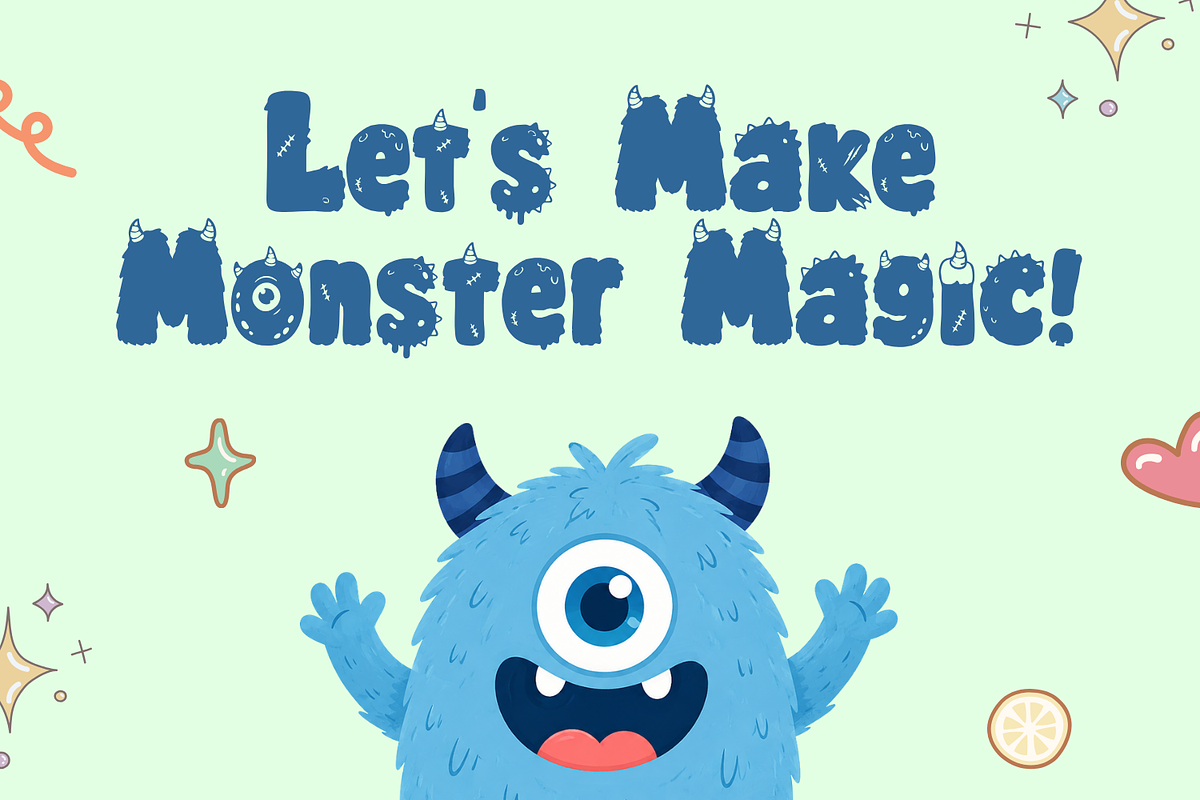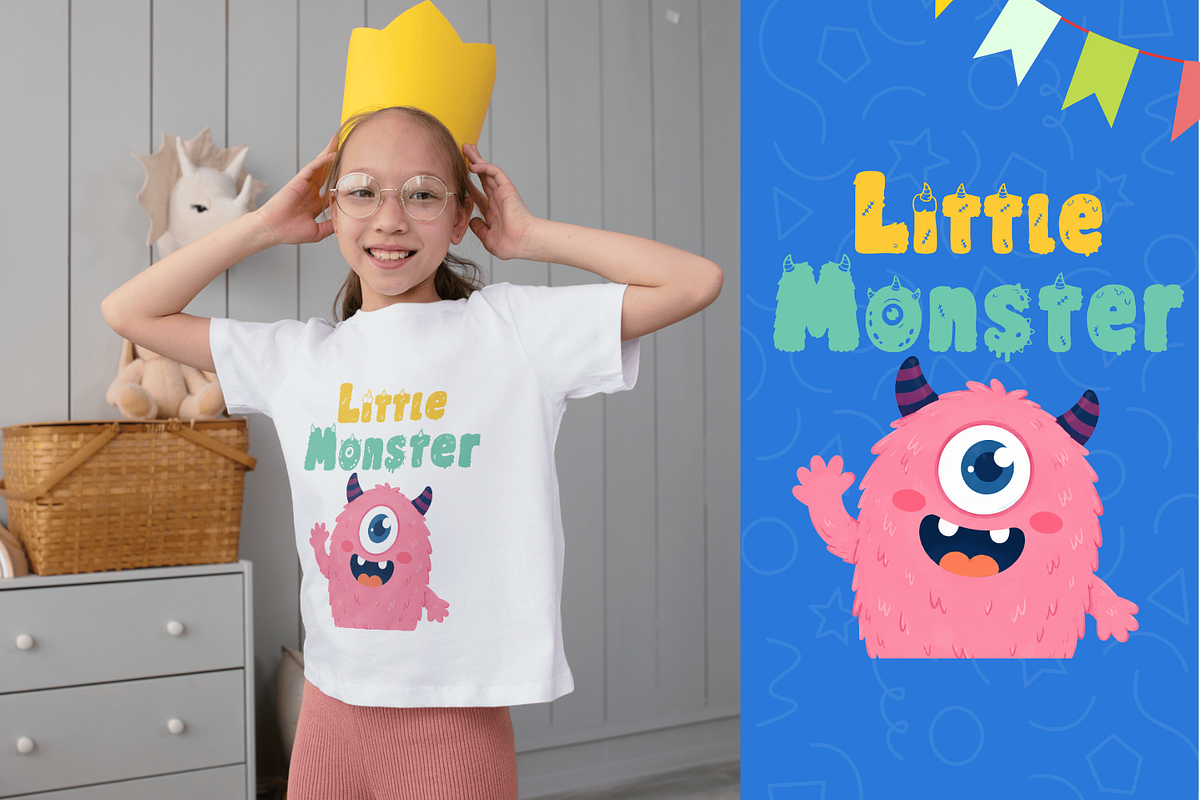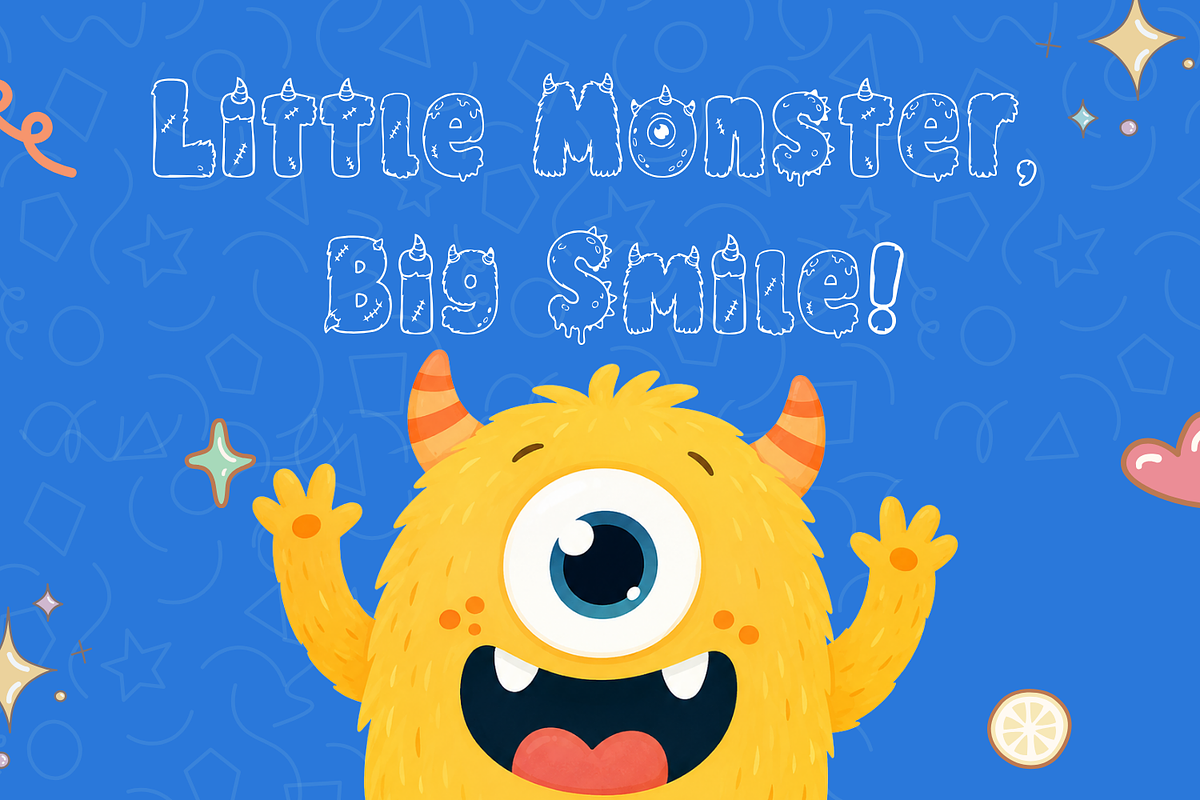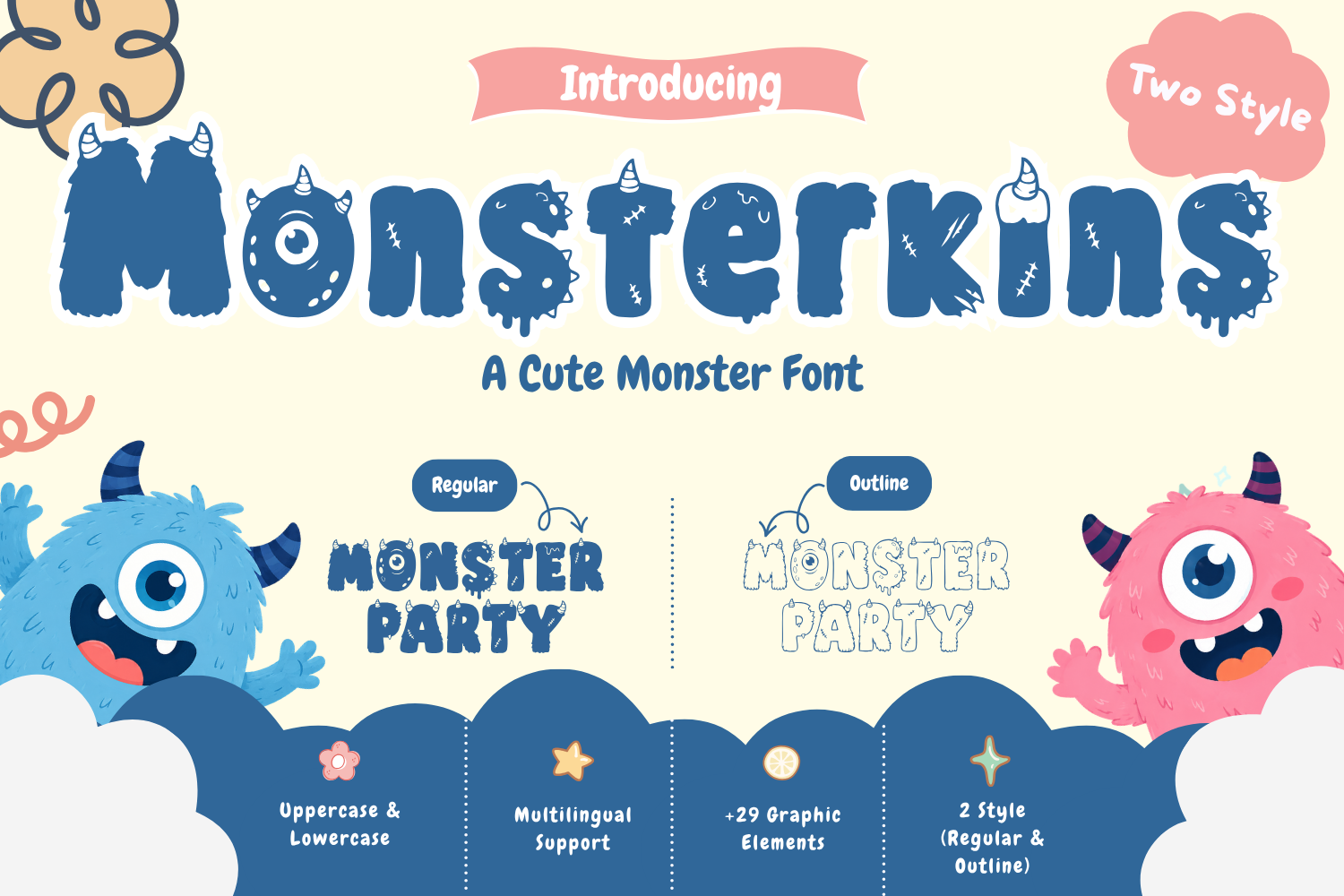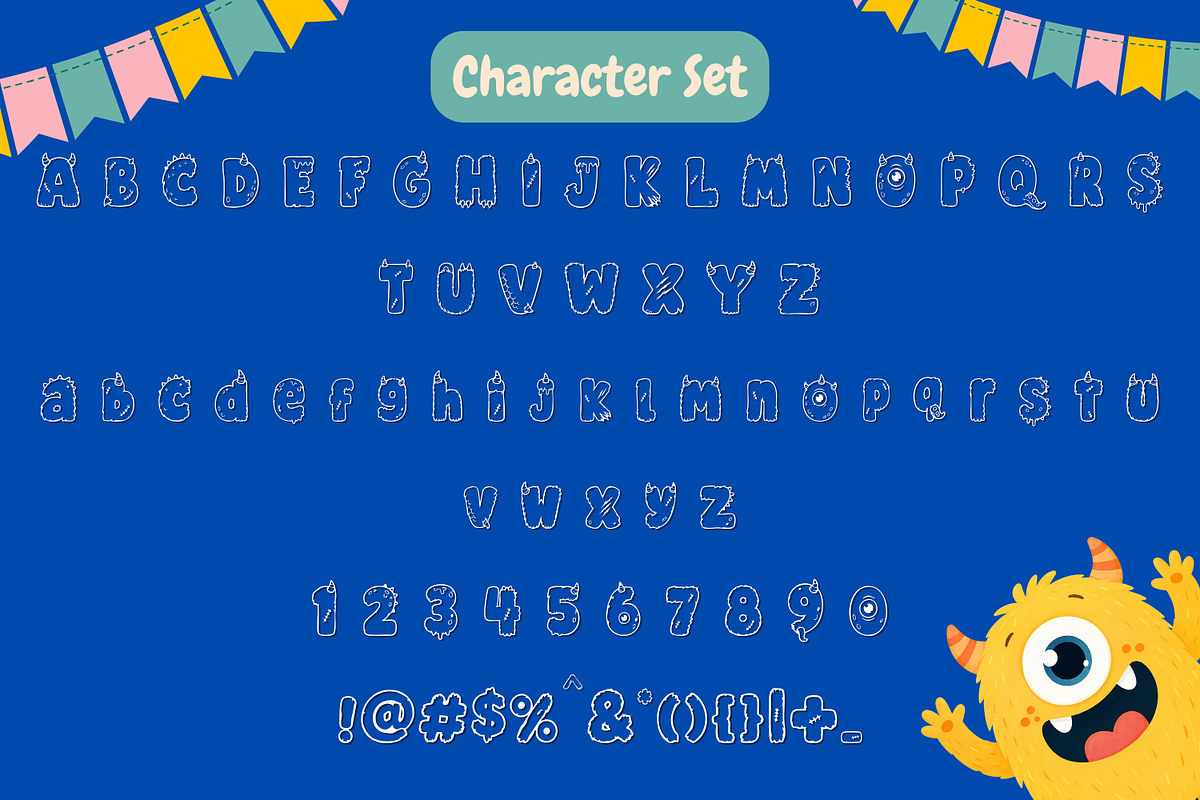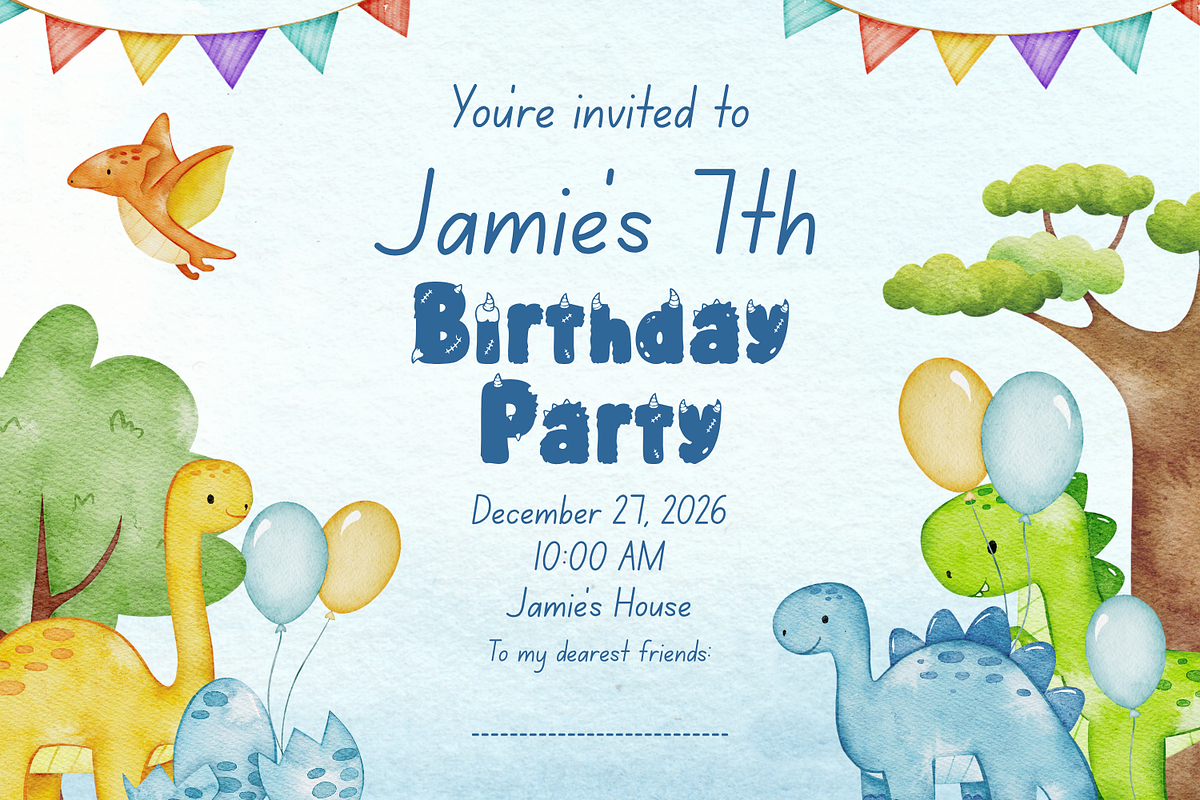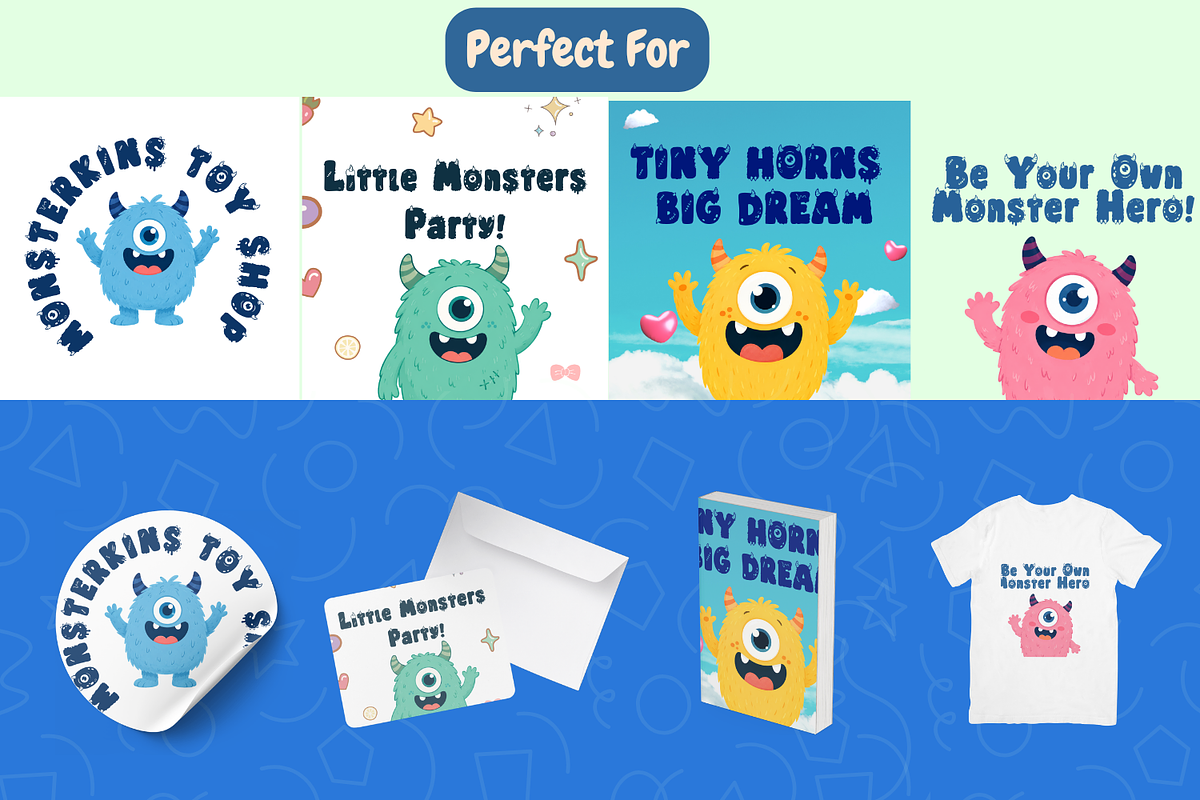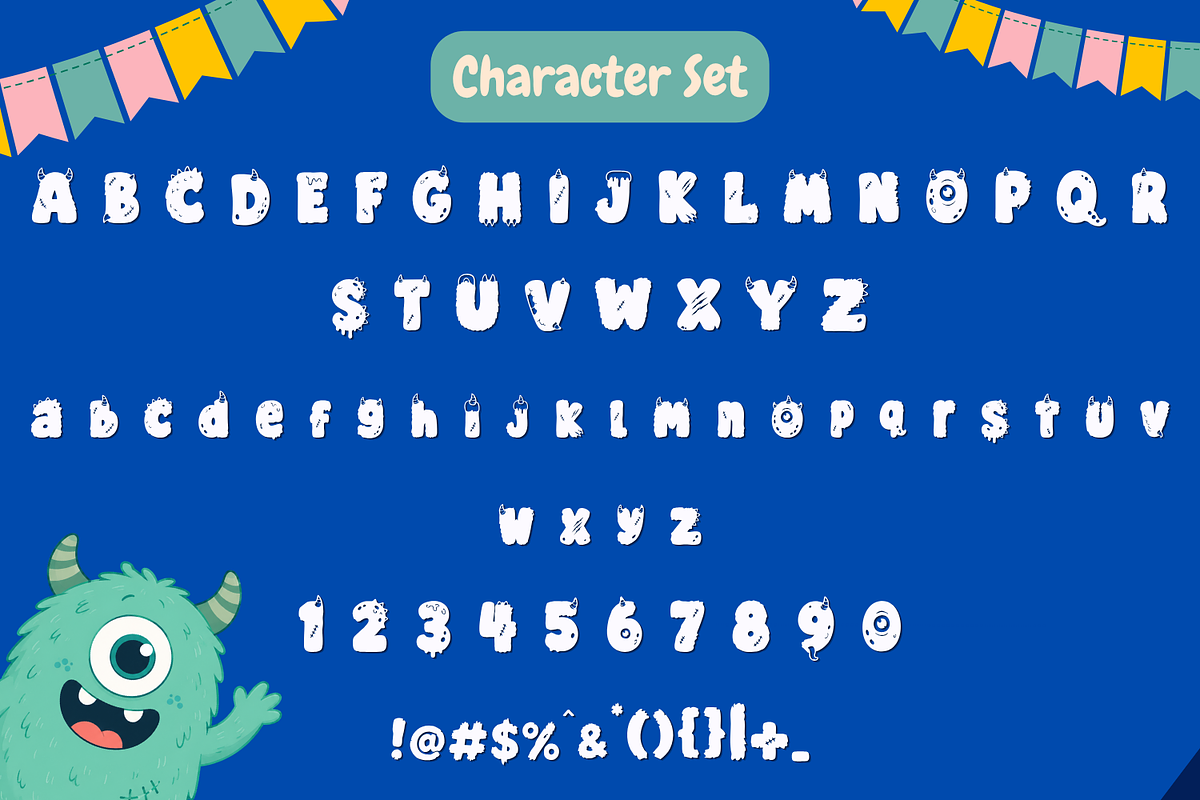
Monsterkins - Monster Display Font
Meet Monsterkins, a cute and playful monster display font packed with fluffy details, adorable horns, and fun character shapes. Designed to bring joy and imagination to your creative projects, Monsterkins is perfect for kids designs, toy branding, party invitations, Halloween crafts, stickers, posters, merchandise, and more.
Regular & Outline Styles